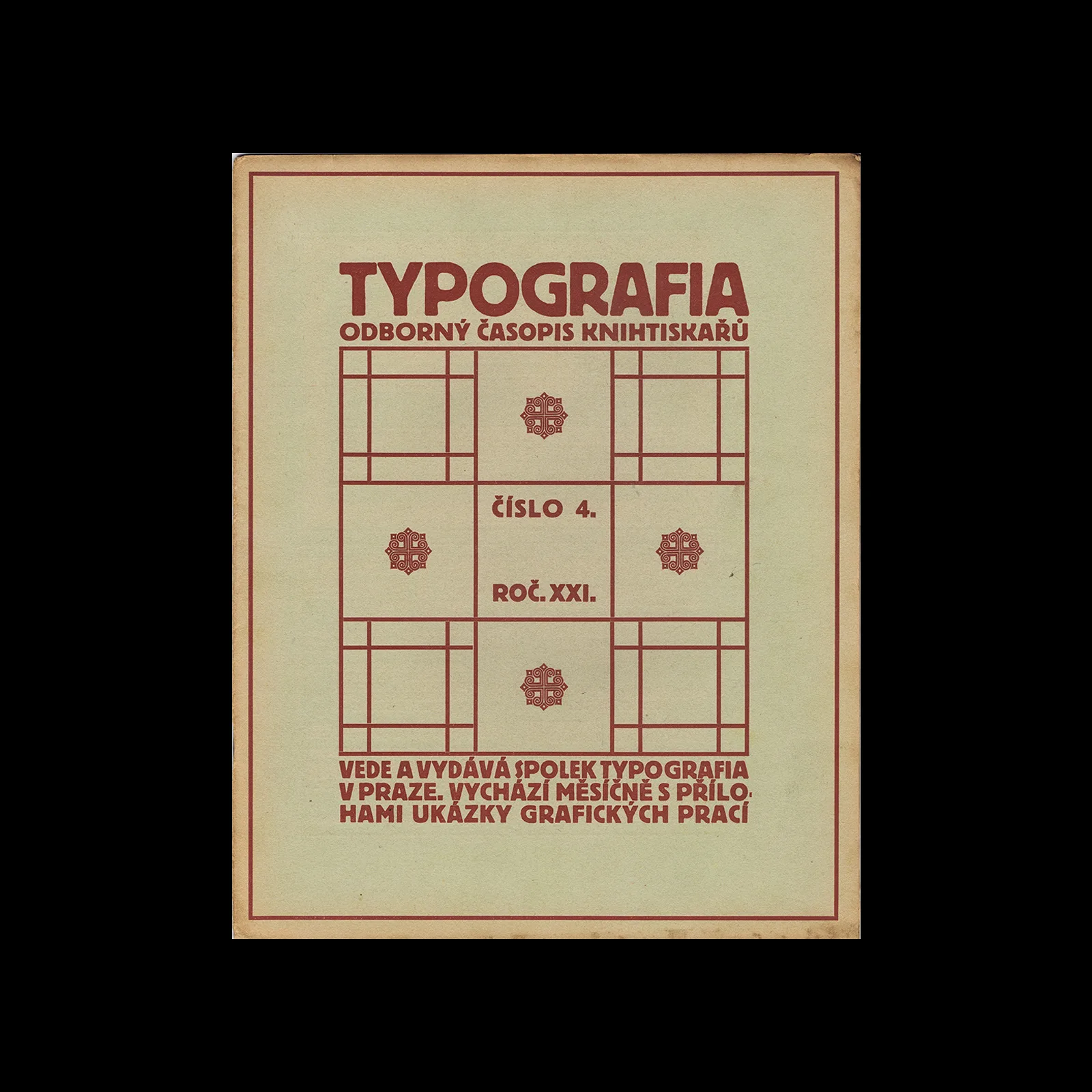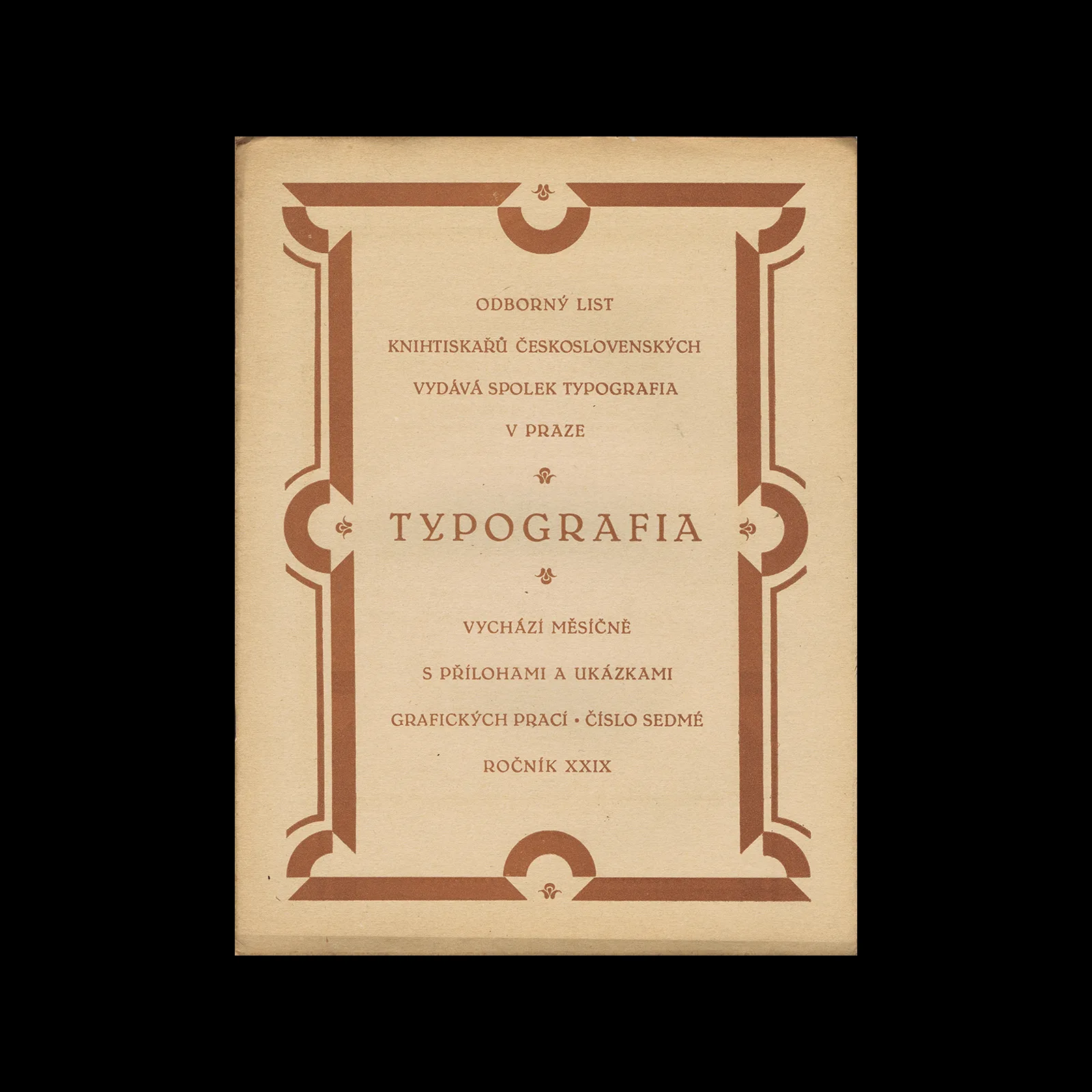
A selection of decorative commercial printing specimens, recommendation cards, business stationery, advertisements, and typographic layouts reproduced as examples of contemporary Czech applied typography and commercial printing practice. The supplementary section also includes reader-submitted monochrome and colour works alongside examples of ornamental typography, practical job-printing, and modern stationery design from Prague, Vienna, and other Central European printing houses.
Articles and editorial texts by Karel Dyrink and Otakar Císař exploring decorative typography, applied graphics, commercial printing, and contemporary developments in Czech design and printing culture. Issues also include reports and proceedings from the Typografia association and editorial committee, alongside printing industry announcements, literature reviews, trade notices, miscellany, reader correspondence, and editorial notes.